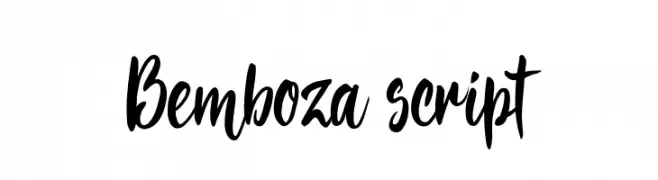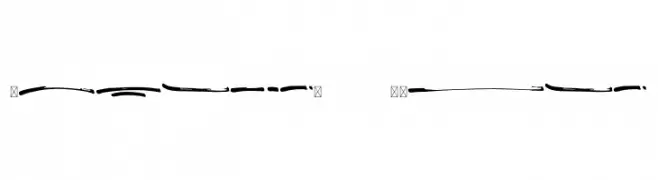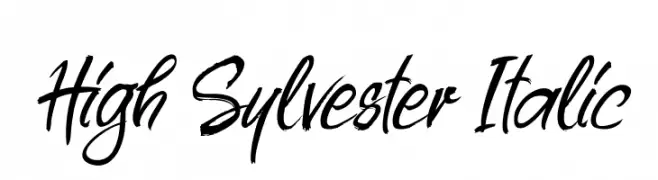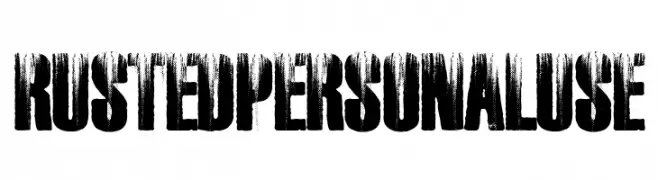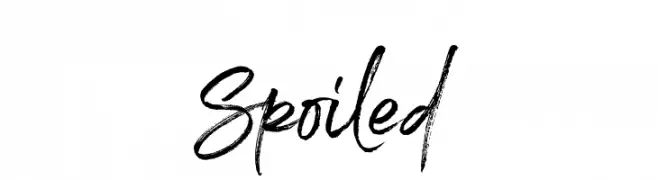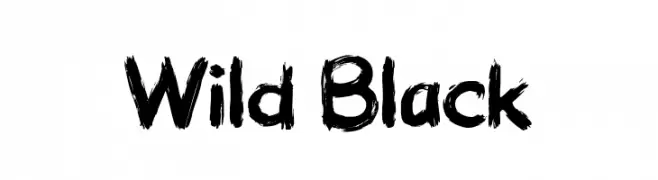
A playful and bold font with curvy, energetic letterforms.
A bold, brushstroke-style font with an energetic and expressive appearance.
A bold, brush-style font with a dynamic and artistic flair.
A bold, expressive brush script font with dynamic strokes and artistic flair.
A bold, italicized brush-style font with dynamic and expressive strokes.
A bold, distressed font with a rugged, textured appearance.
A bold, hand-painted style font with textured, dynamic strokes.
A bold, hand-drawn font with irregular strokes and a dynamic, expressive style.
An elegant script font with decorative swashes and flowing lines.
A bold, brushstroke font with an expressive, hand-drawn style.